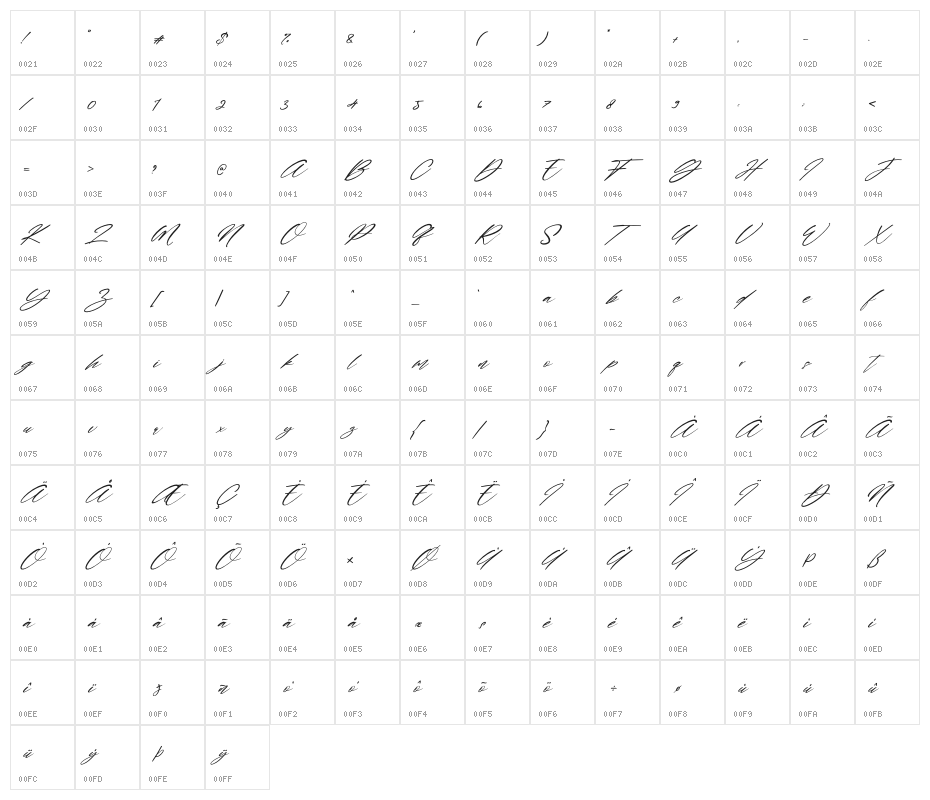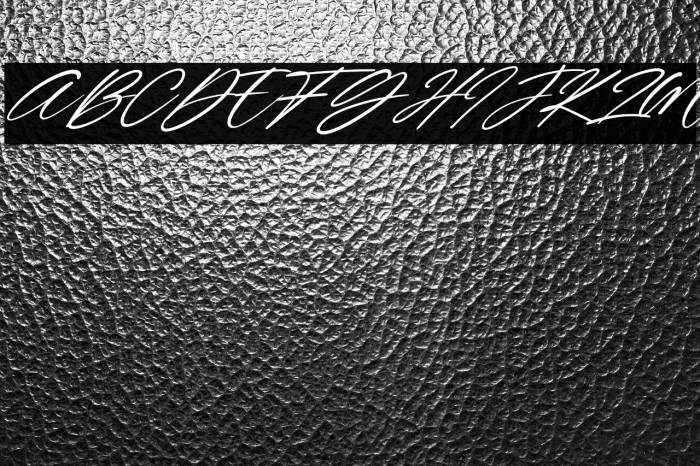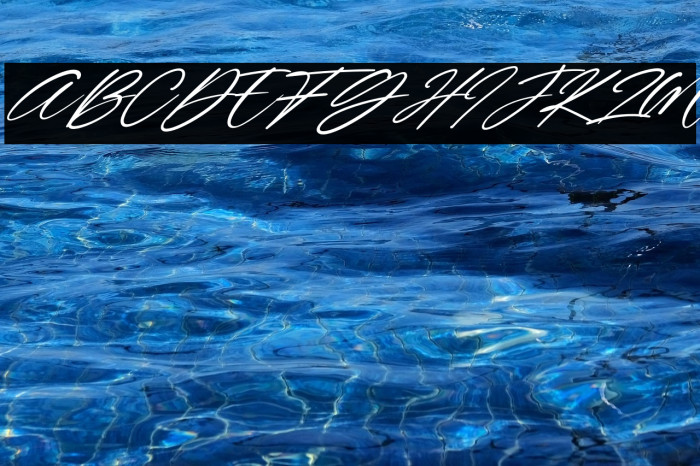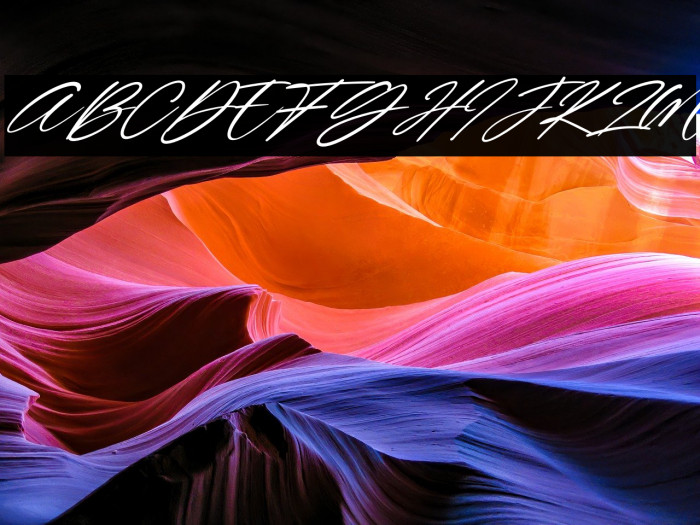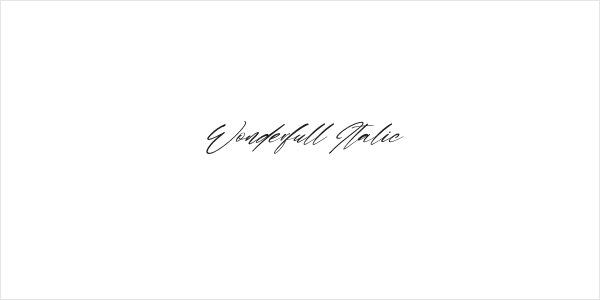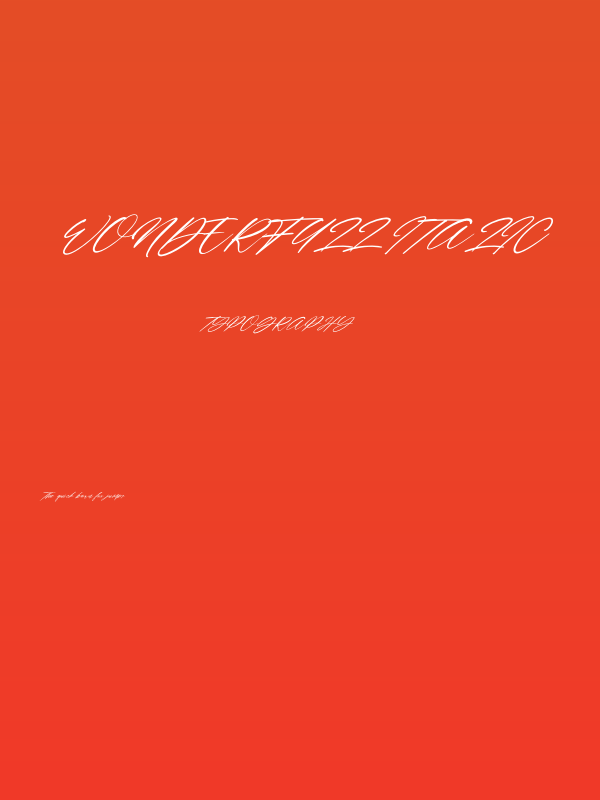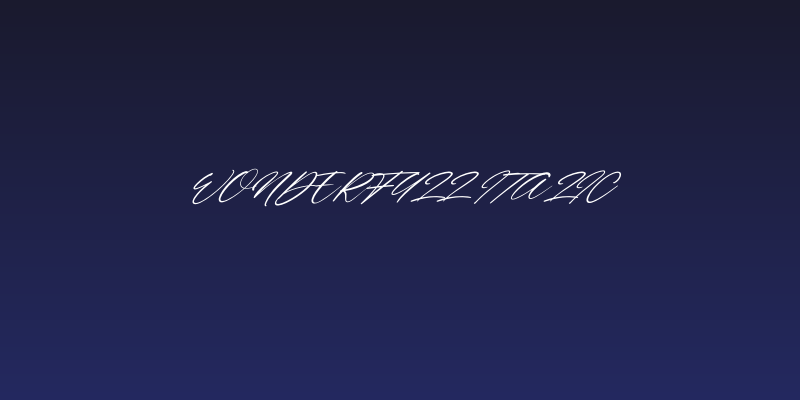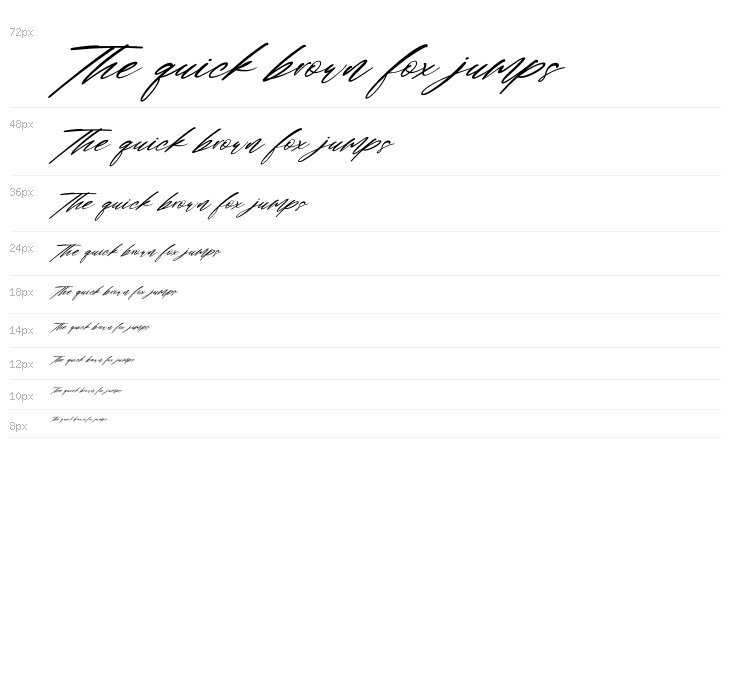
Wonderfull Italic Font
Wonderfull Italic Description
This elegant script font features a flowing, cursive style with a sophisticated and artistic flair. The characters are connected, creating a seamless and fluid appearance. The uppercase letters are bold and sweeping, while the lowercase letters maintain a delicate and graceful form. The numerals and special characters are consistent with the overall script style, adding to the font's cohesive look. This font exudes a sense of elegance and creativity, making it ideal for projects that require a touch of sophistication.
| Proposed Projects | Ideal for wedding invitations, elegant branding, personal signatures, and artistic projects. |